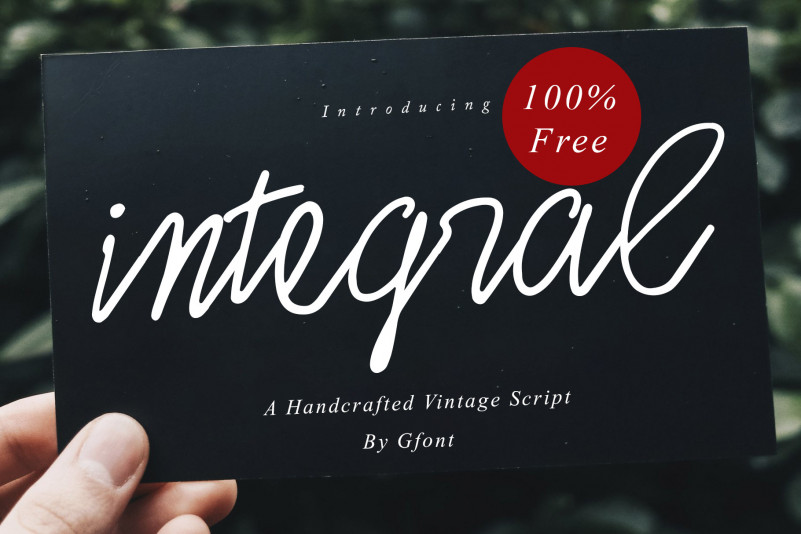
Integral Script Font
Introducing Integral Font – is typeface was inspired by handwriting using pen. Beautiful script fonts! Sweet & Elegant Fonts. This typeface has a handwriting style but still looks good for a modern design. Integral Script Very well for your work such as logos, brands, packaging, posters, invitations, headlines, posters, and many others to create designs that more unique and versatile far wider.